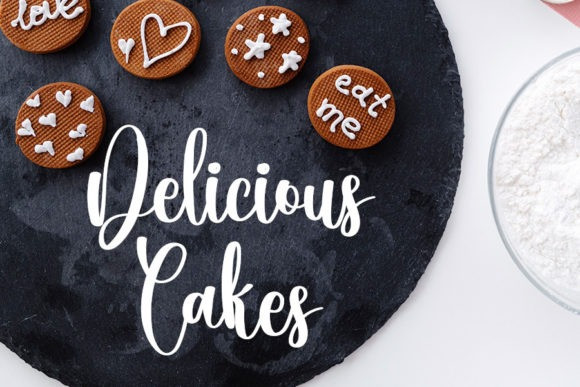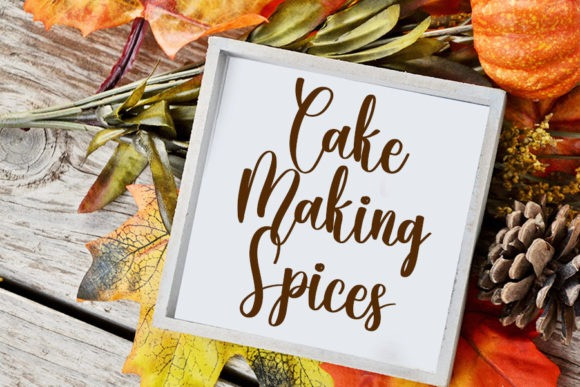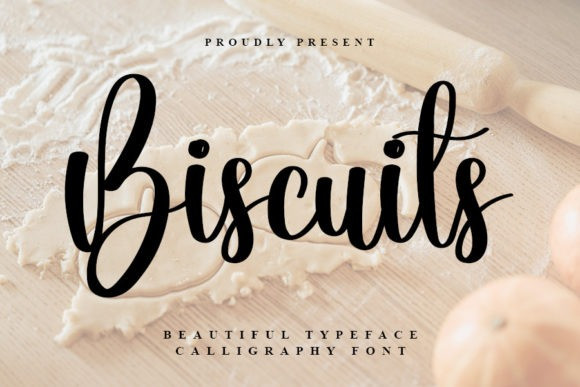
Biscuits Font
Biscuits Script Font is an enchanting handwritten font. This versatile script font has a wide spectrum of applications ranging from greeting cards to headlines and is guaranteed to add a romantic feel to your next project.